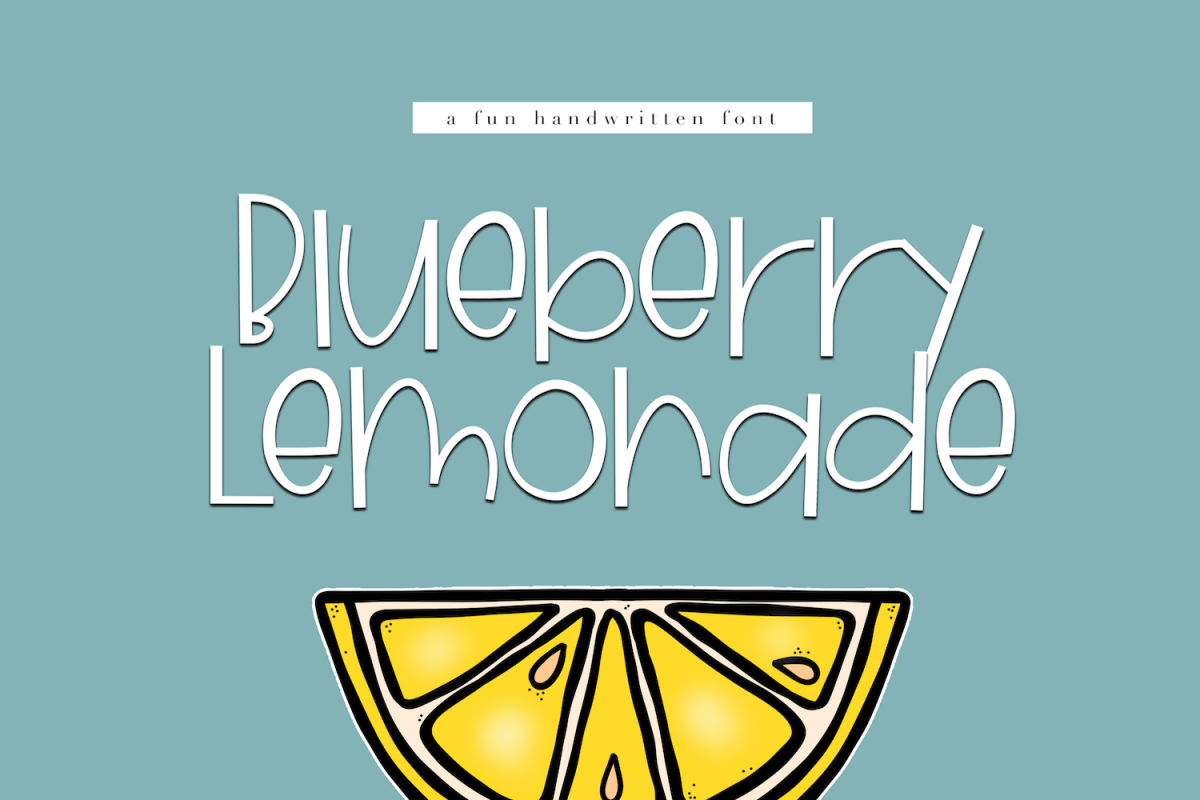
Blueberry Lemonade - A Fun Handwritten Font
Blueberry Lemonade is a cute & quirky handwritten font.  The letters are fun and unique!
This font is perfect for quotes, headings, blogs, logos, invitations and more!